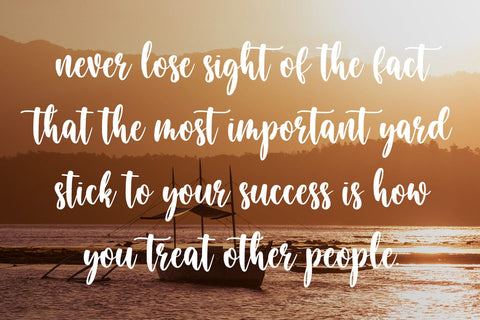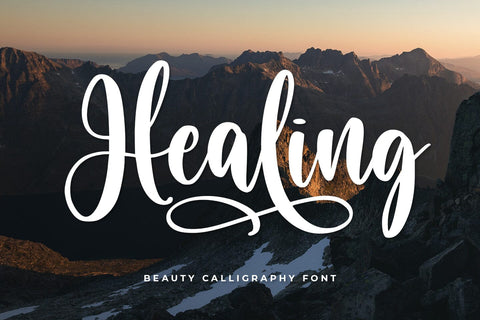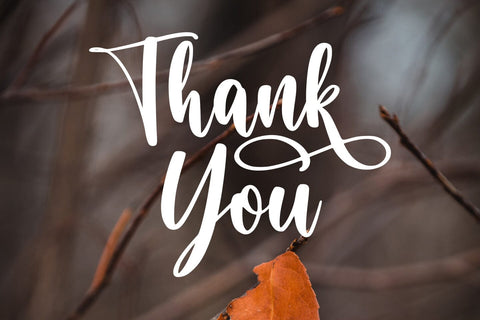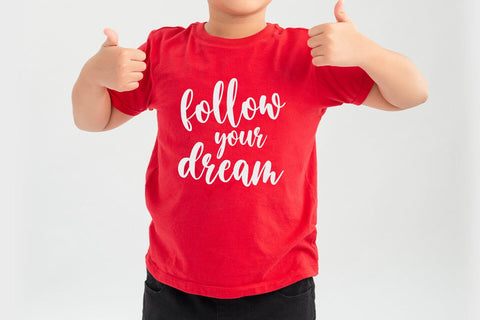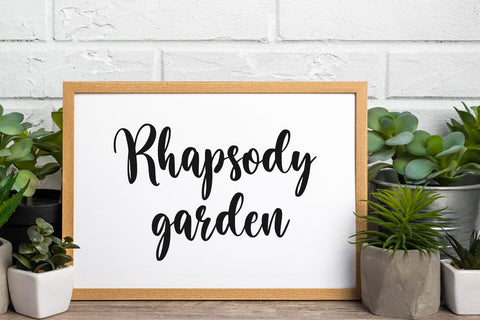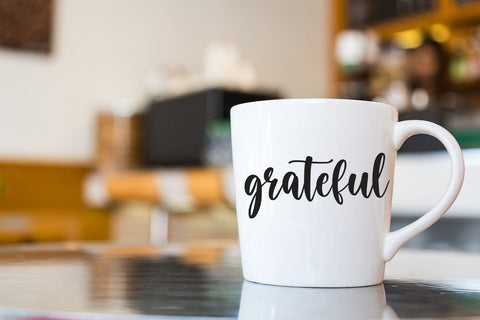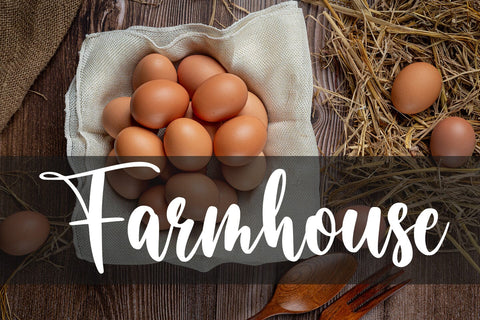
Healing
introducing
HEALING
- beauty calligraphy font-
HEALING is beautiful script font.
It is great for branding, quotes, wedding, wall decoration, logos, t-shirt designs, tote bag designs, cards, banners, social media, and more.
it is complete with alternate characters.
- Numeral
- Punctuation